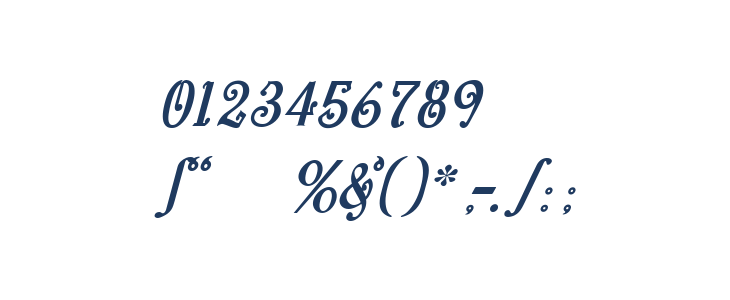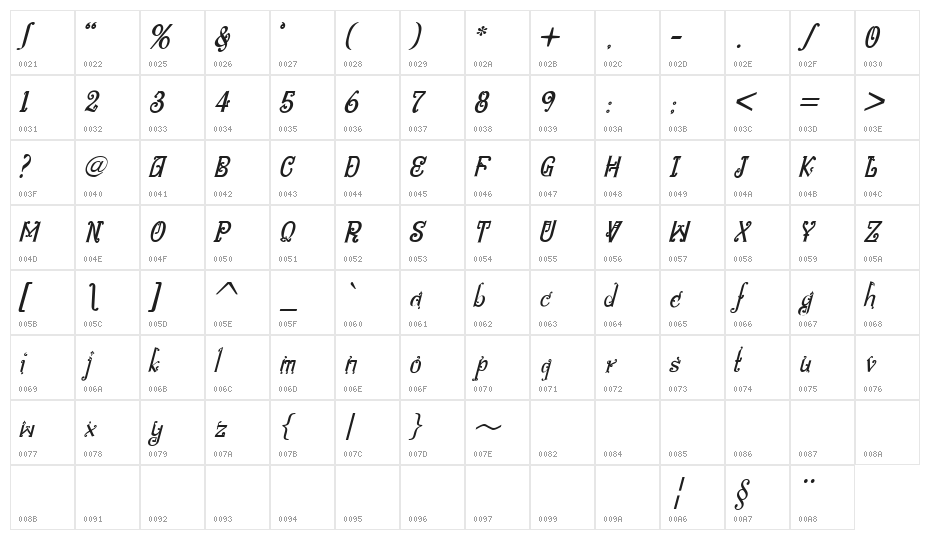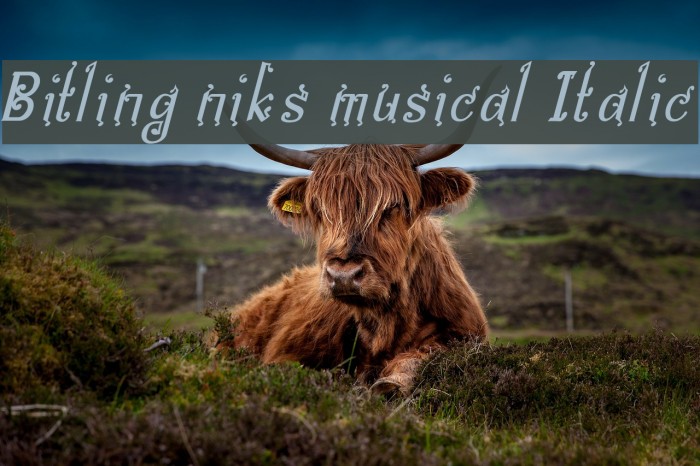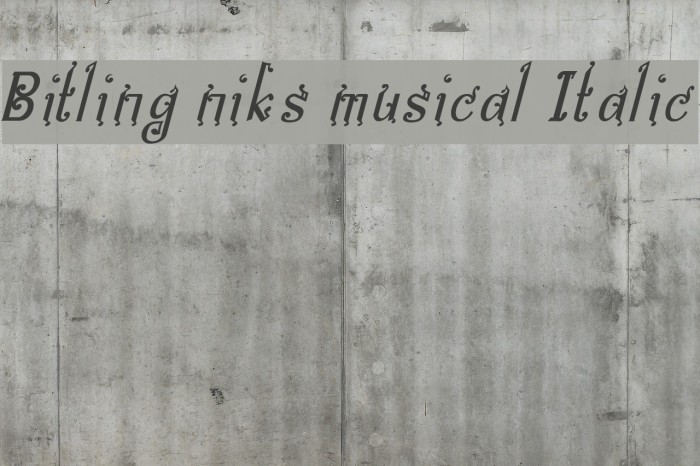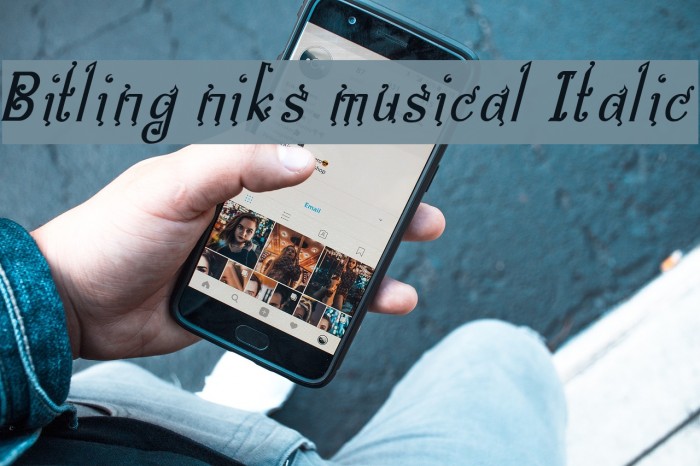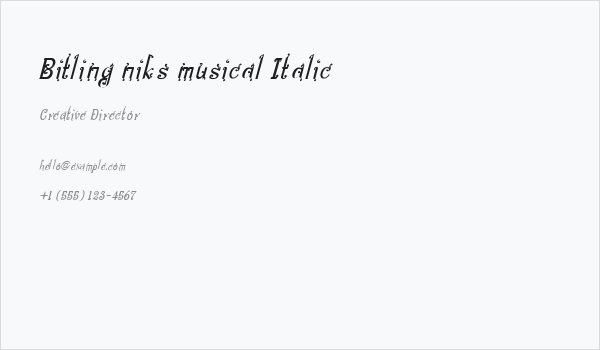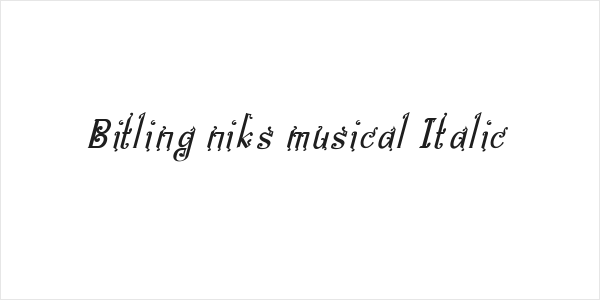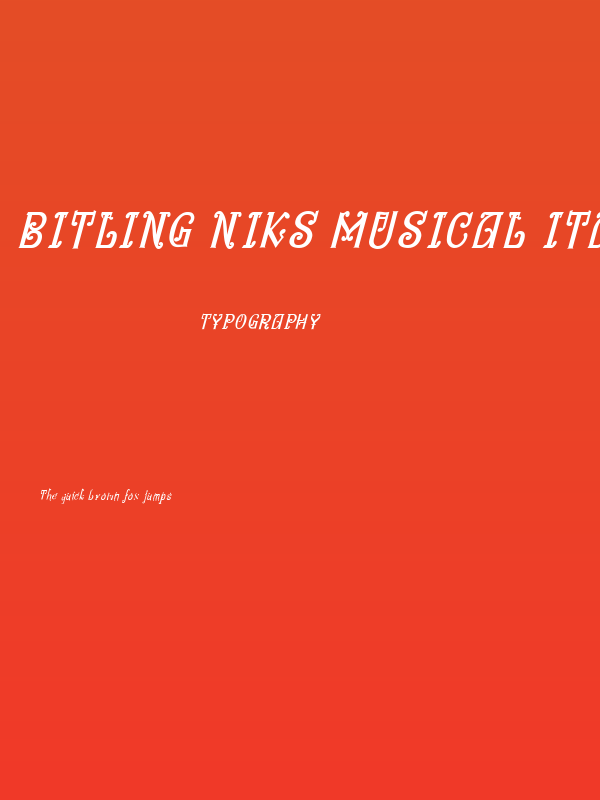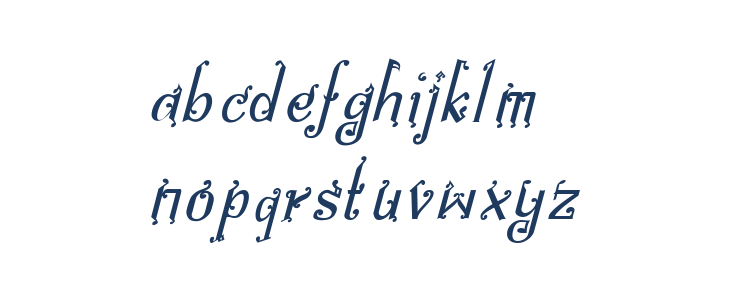
Bitling niks musical Italic Font
Bitling niks musical Italic Description
This font features a unique and playful design with a musical flair, characterized by its decorative elements and italicized style. Each letter is adorned with small, whimsical details that resemble musical notes or instruments, giving it a lively and artistic appearance. The uppercase letters are bold and prominent, while the lowercase letters maintain a consistent style with slightly more intricate detailing. The numbers and special characters follow the same decorative theme, ensuring a cohesive look across all glyphs. This font's distinctiveness makes it suitable for creative projects that require a touch of elegance and fun.
| Proposed Projects | Ideal for music-related branding, event posters, album covers, or any creative project seeking a whimsical and artistic touch. |